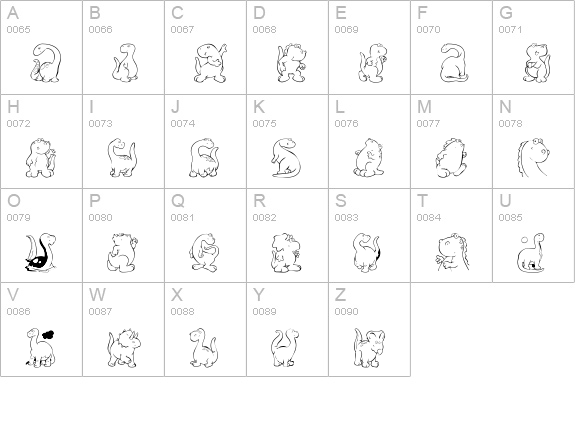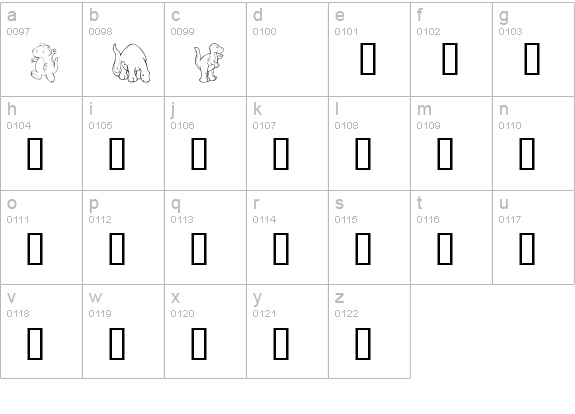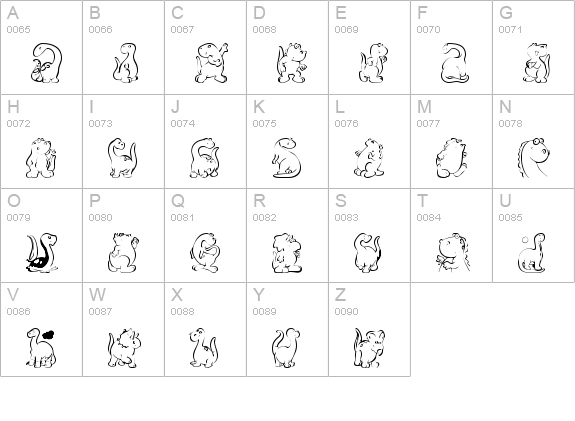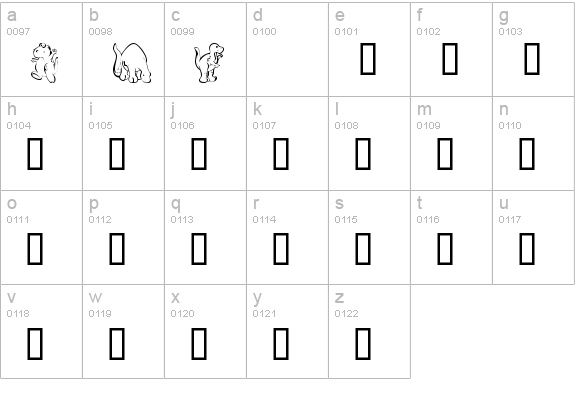
KR Nicky's Dinos Font Details
KR Nicky's Dinos font is a whimsical and playful typeface perfect for any project related to dinosaurs or prehistoric themes. The font features unique dinosaur-inspired characters that will add a fun and creative touch to your designs. Whether you're creating invitations for a dinosaur-themed birthday party, designing a poster for a science fair, or adding some charm to your children's book illustrations, KR Nicky's Dinos font is sure to make your project stand out. The best part is that KR Nicky's Dinos font is completely free to download at FontsMarket.com. You can easily access this delightful font and use it in your personal or commercial projects without any restrictions. So why wait? Start adding a touch of Jurassic fun to your designs with KR Nicky's Dinos font today!